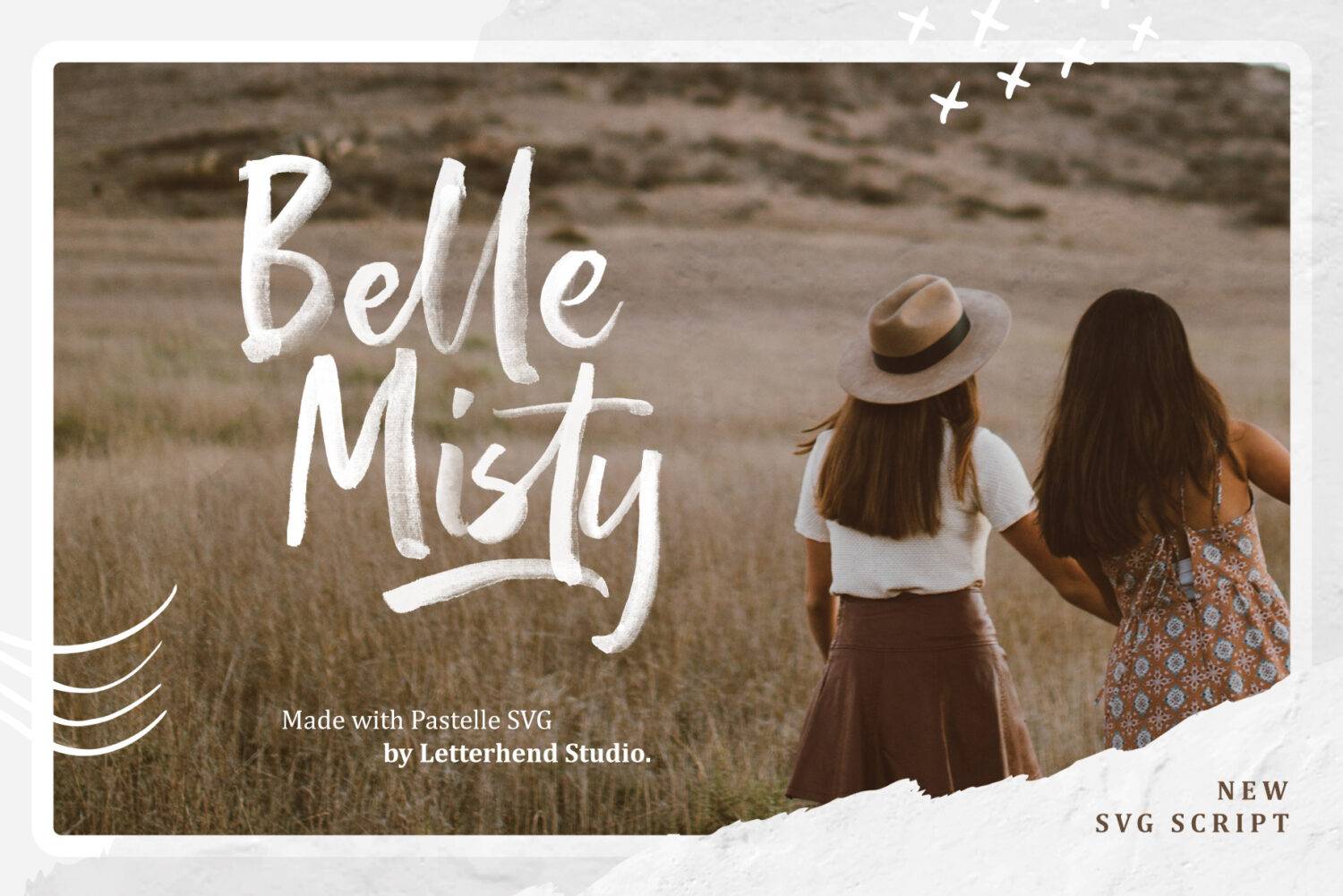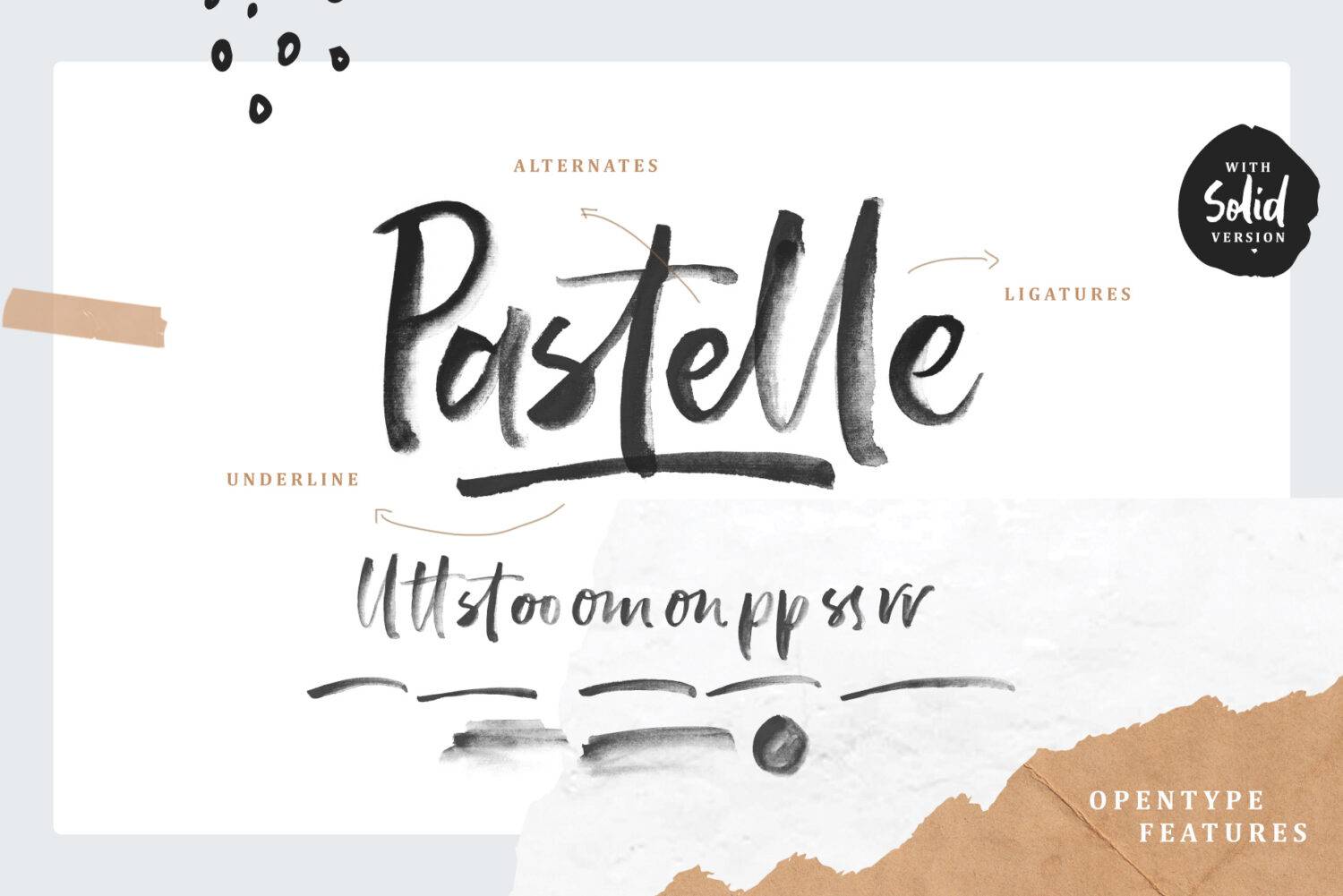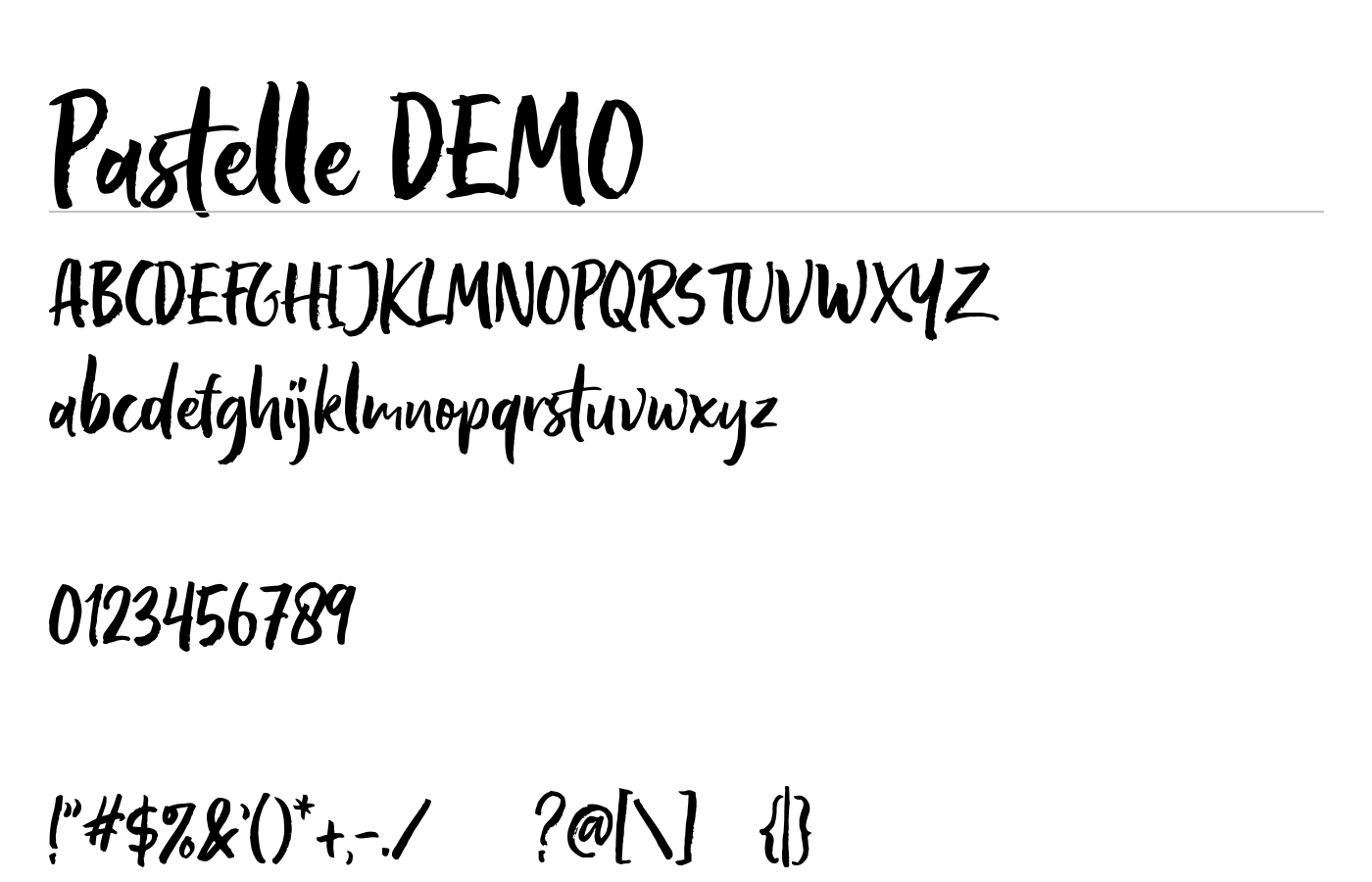
Pastelle is a lively, hand-drawn script font with a bold, brushstroke texture that adds a playful and artistic touch to any design. Its tall, slightly irregular letterforms convey a casual, creative vibe, making it ideal for projects that want to feel personal and expressive, such as invitations, branding, or posters. This font works best in headlines and display uses where its unique character can shine.
Pastelle Font
About Pastelle Font
| Font family | Pastelle Font |
| Release date | 2018-08-15 |
| Designer | Sarid Ezra |